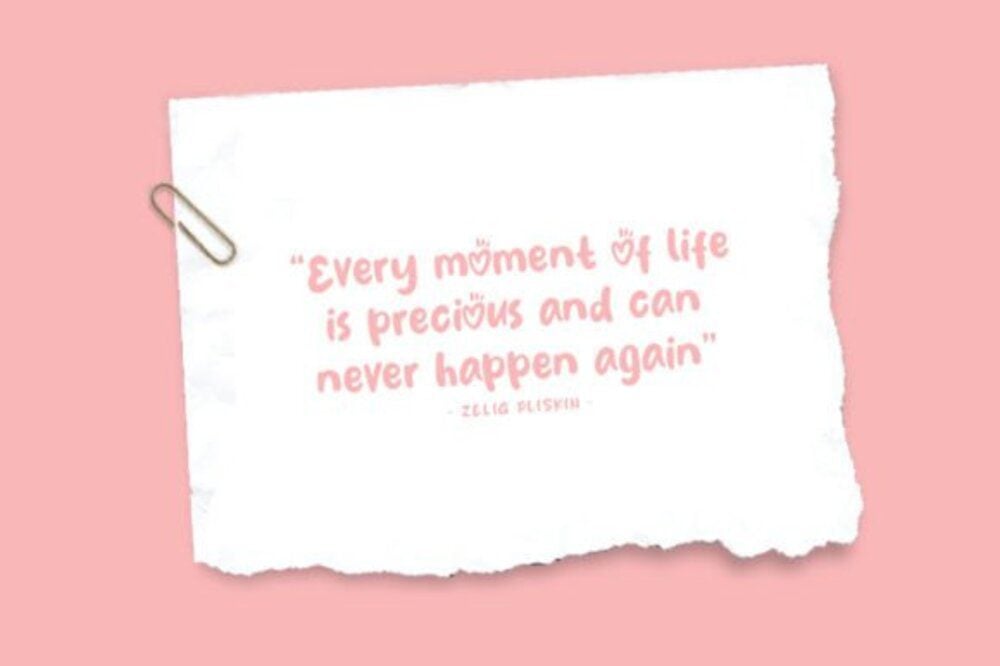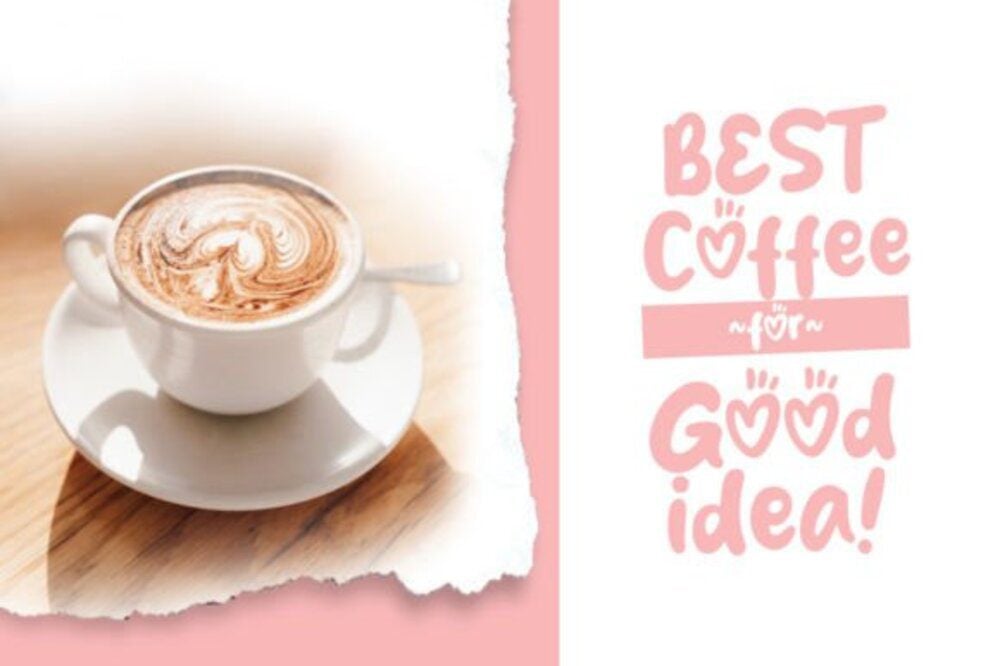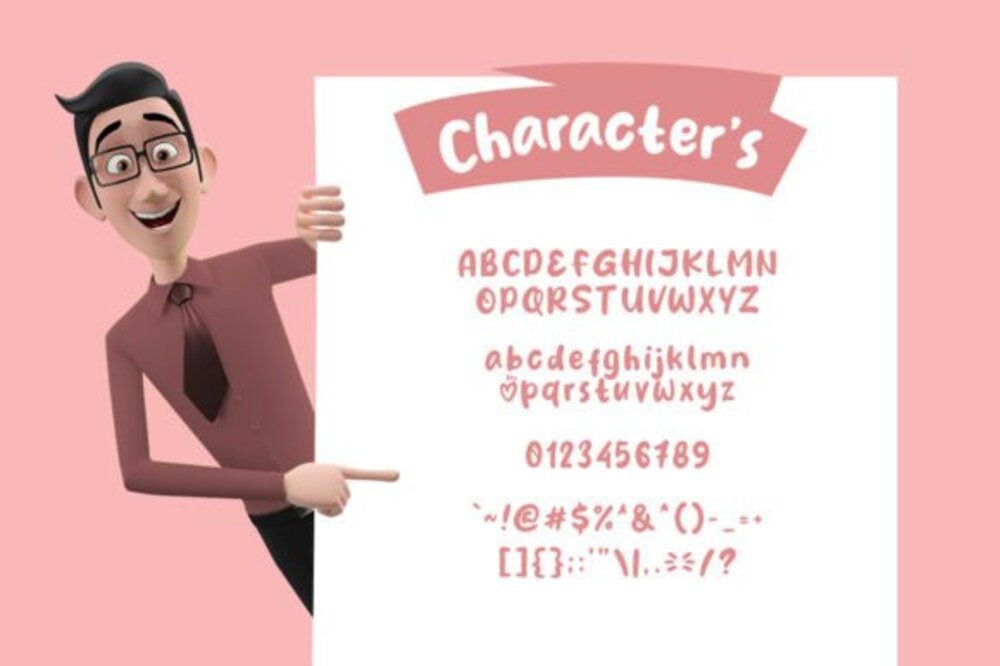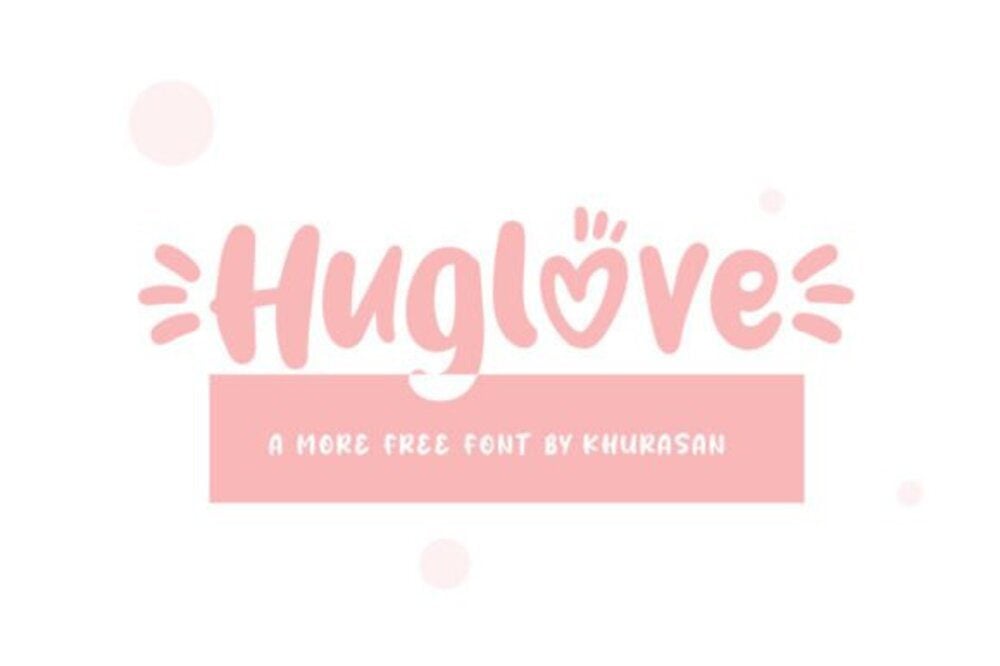
Huglove Font
Huglove Font is a warm and affectionate script typeface that radiates kindness and charm. Its soft, flowing strokes and rounded edges create a friendly and inviting feel, making it ideal for greeting cards, love notes, branding, and social media posts. Perfect for projects that need a personal touch, Huglove adds a cozy, heartfelt vibe to any design.